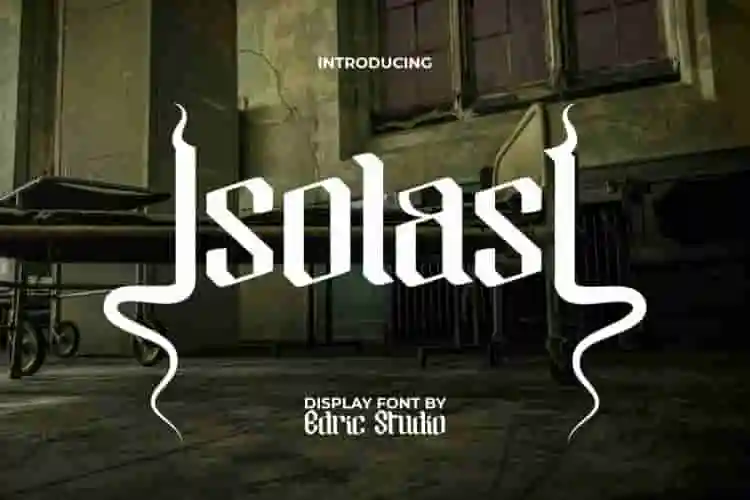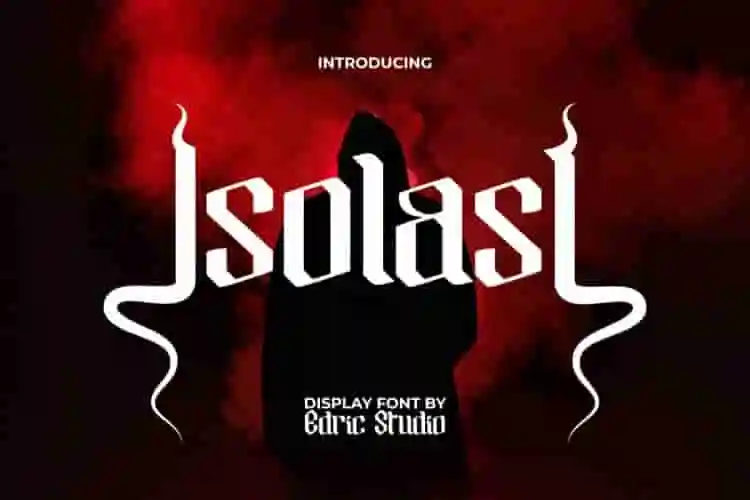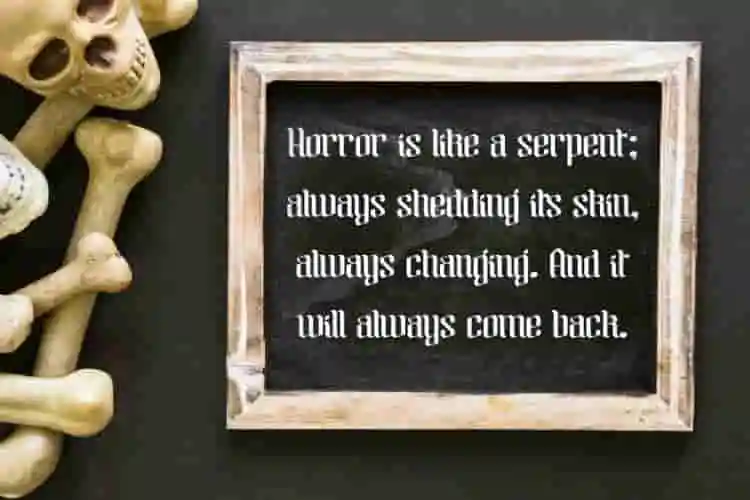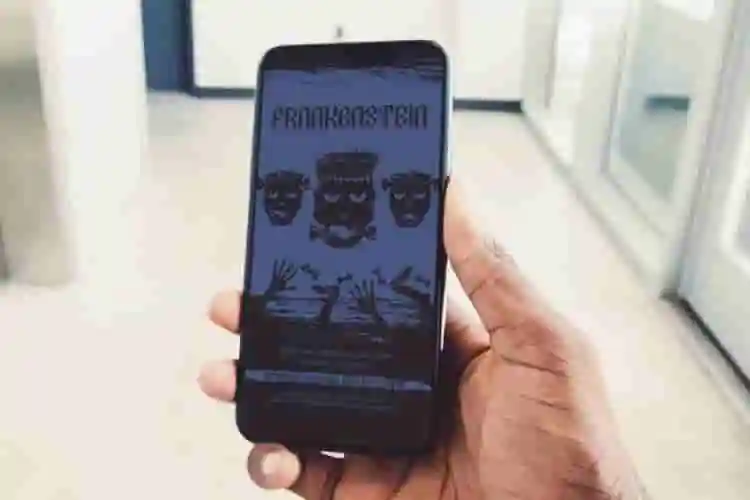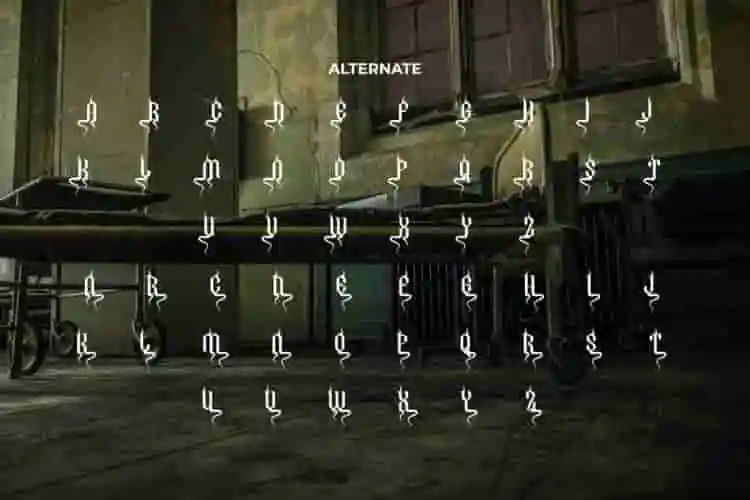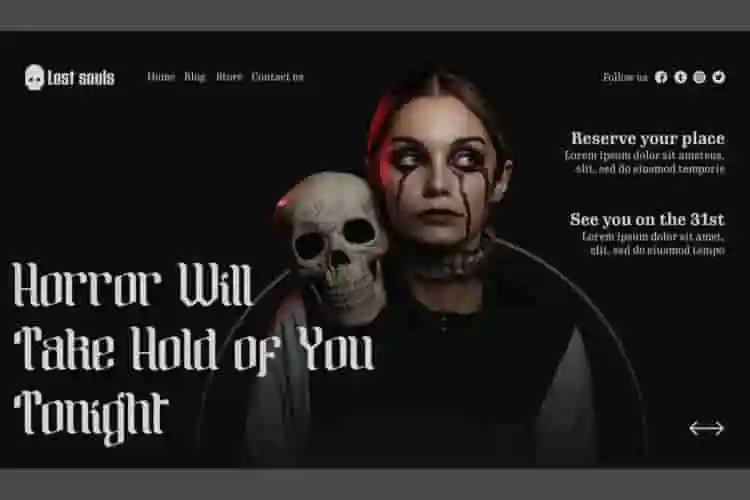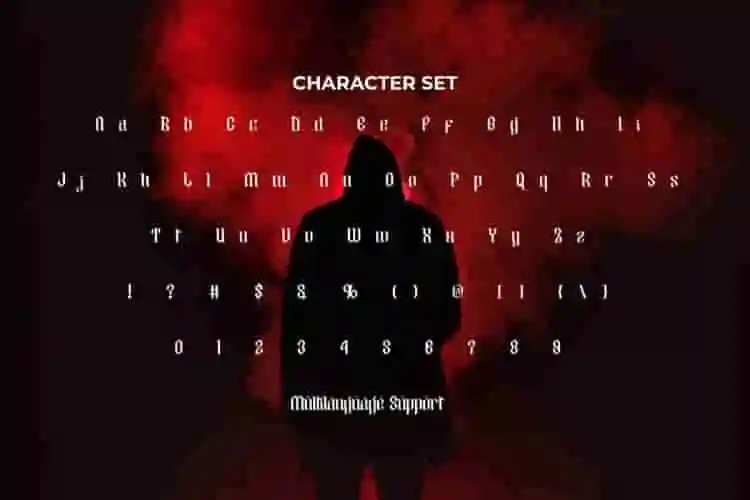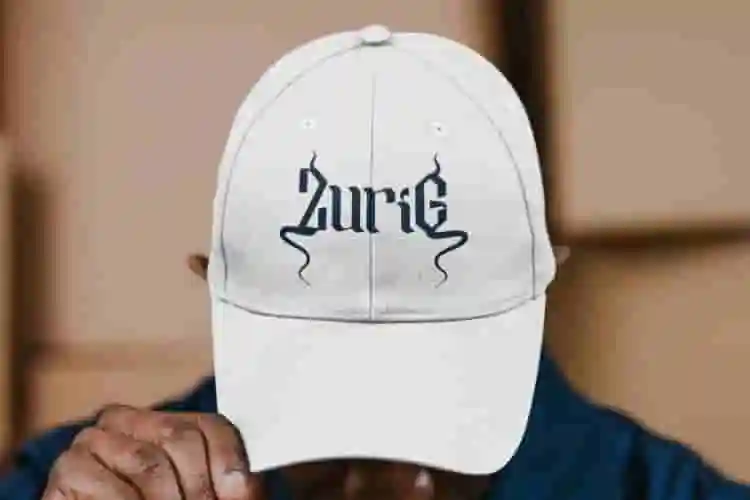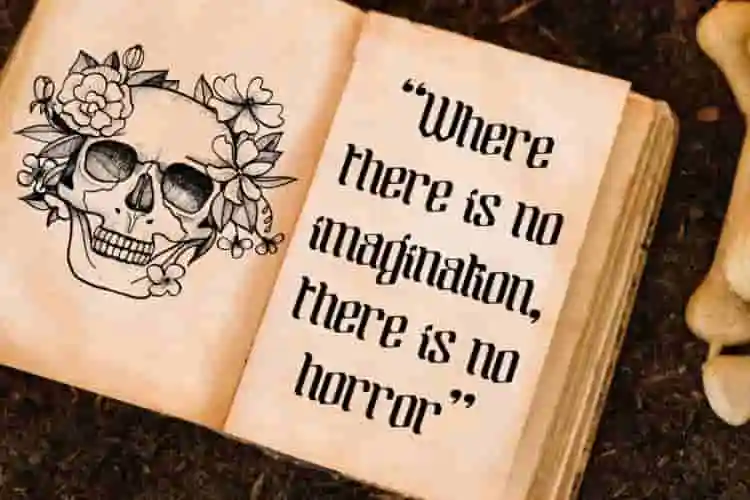
Isolasi Font is a spooky horror-themed display font that is gripping with the addition of alternates that have a unique shape of a curve that resembles lightning with sharp edges. This scary font will be perfect for, such as book cover, editorial, headers, headlines, invitation, logos, mockup design, posters, quotes, screen printing hat, stickers, text art on background, titles, websites, and more.
Isolasi Font comes with a full set of Uppercase and Lowercase letters, Numbers, Punctuation, Symbol and Alternate. Perfectly crafted with high precision to produce letterforms that look menacingly creepy and give you goosebumps! Basically perfect for Halloween themed stuff. This font will be a great choice for advertising, apparel, event organizer, fashion, film, games, movie, printing, publishing, sports, sportwear, web design, etc.
Break free from the ordinary with Isolasi Display Font — a bold, experimental display font built for projects that challenge convention. Inspired by isolation, fragmentation, and raw structure, this font is made for creators who live on the edge of design.
Isolasi isn’t just a font — it’s a visual statement. Its sharp cuts, distorted angles, and irregular forms make it perfect for brutalist posters, underground music covers, dystopian editorials, glitchy web design, and bold branding.